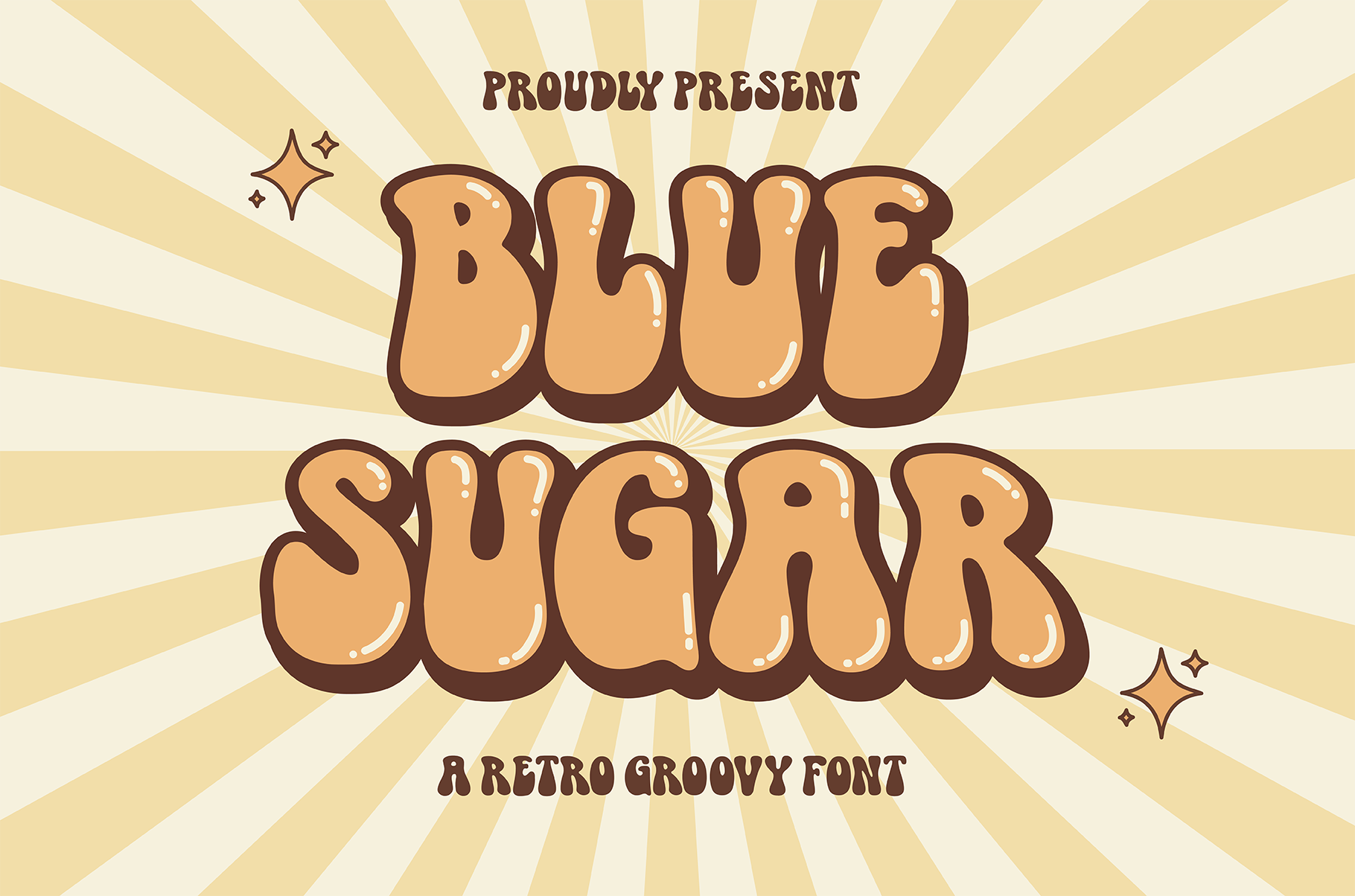
Blue Sugar Display Font
Blue Sugar is a retro groovy font, inspired by retro bold typography. This font is perfect for a design that makes it more attractive and playful.Its unique letter forms make this font perfect for groovy band posters, hippie logos, social media posts, packaging, magazine covers, and more.